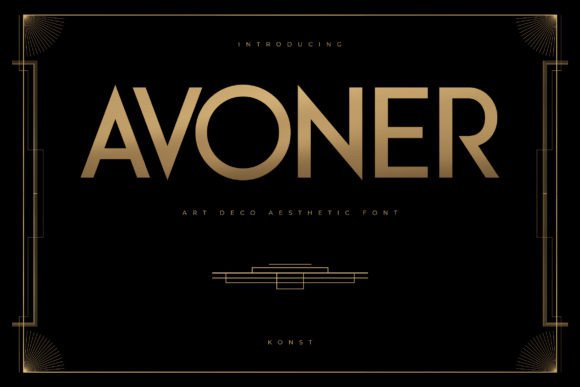
Introducing Avoner Font, the epitome of elegance and sophistication in the world of typography. Crafted by the talented team at konstantinestudio, this luxury art deco font takes inspiration from the visually captivating era of the 1930s, where glamour and style reigned supreme.
Are you in search of the perfect font to elevate your logo, branding, or high fashion aesthetic? Look no further, as Avoner Font is here to transform your designs into works of art. Its sleek and timeless sans serif style adds a touch of class to any project, making it the ideal choice for those seeking a touch of luxury.
Whether you are designing a magazine spread, creating jewelry or perfume advertisements, or even curating a cosmetic or champagne branding, Avoner Font is your ultimate companion. Its versatility knows no bounds, allowing you to effortlessly captivate your audience and leave a lasting impression.
One of the standout features of Avoner Font is its ALL CAPS design. With this font, both uppercase and lowercase characters appear identical, providing a unique and eye-catching visual effect. This distinction sets it apart from the ordinary, making it a font that demands attention.
Imagine the impact Avoner Font will have on your banner designs. With its captivating style and rich selection of characters, it will effortlessly draw in your audience and convey your message with elegance and flair. The carefully curated shapes and curves of each letter exude a sense of artistry, bringing your words to life in a way that is truly unforgettable.
Avoner Font is not just a font; it is an experience. Its emotional allure evokes a sense of nostalgia for a bygone era, where beauty and craftsmanship were celebrated. With every stroke and letter, it tells a story of sophistication and refinement, inviting users to indulge in its timeless charm.
In conclusion, Avoner Font is the epitome of luxury and style, designed to transform your projects into captivating masterpieces. Its versatility, elegance, and timeless appeal make it the perfect choice for logo design, branding, high fashion aesthetics, magazines, jewelry, perfumes, cosmetics, champagne branding, and so much more. Step into the world of Avoner Font and let it elevate your creations to new heights of beauty and sophistication.